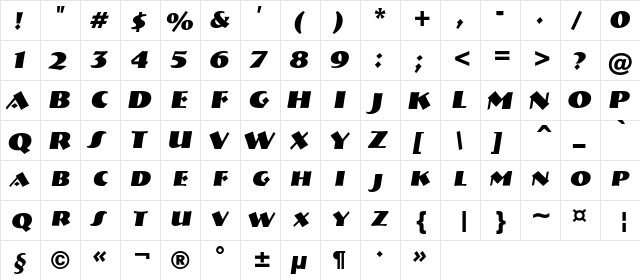
a_BremenCaps BoldItalic Font Preview
a_BremenCaps BoldItalic
Design Context for a_BremenCaps Typeface
a_BremenCaps takes a measured approach to typography — its balanced proportions and neutral character make it a reliable workhorse for both digital and print work. The dynamic lean of this cut emphasises speed and emphasis in any layout. Its bold stroke weight gives it real presence on the page.
Pro Tip: Try a_BremenCaps for annotation and caption copy alongside an upright companion — the contrast in angle creates a dynamic but ordered typographic system.